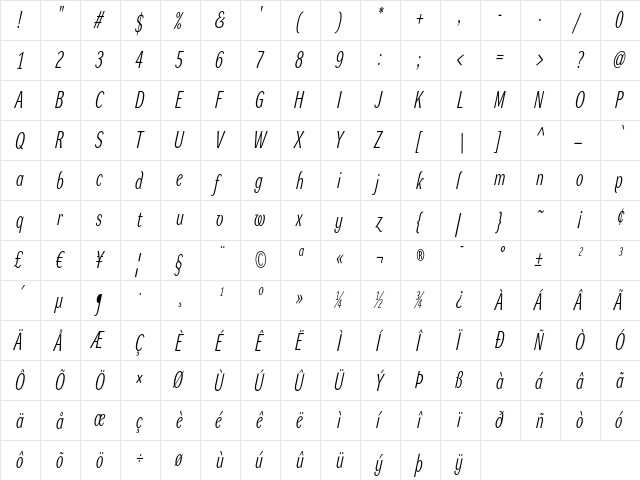
DynaGrotesk LXC Italic Font Preview
DynaGrotesk LXC Italic
DynaGrotesk LXC Italic Font Details
| Foundry | Frantisek Storm, stormtype.com |
Design Context for DynaGrotesk LXC Typeface
DynaGrotesk LXC has the quiet confidence of well-executed sans-serif typography: versatile, unobtrusive, and dependable at any size. The dynamic lean of this cut emphasises speed and emphasis in any layout.
Font Pairing: Works well alongside a characterful serif or display font that can carry the expressive load while DynaGrotesk LXC handles the functional copy.
Pro Tip: Use DynaGrotesk LXC for UI labels, navigation, and short-form body copy where clean legibility is the priority.